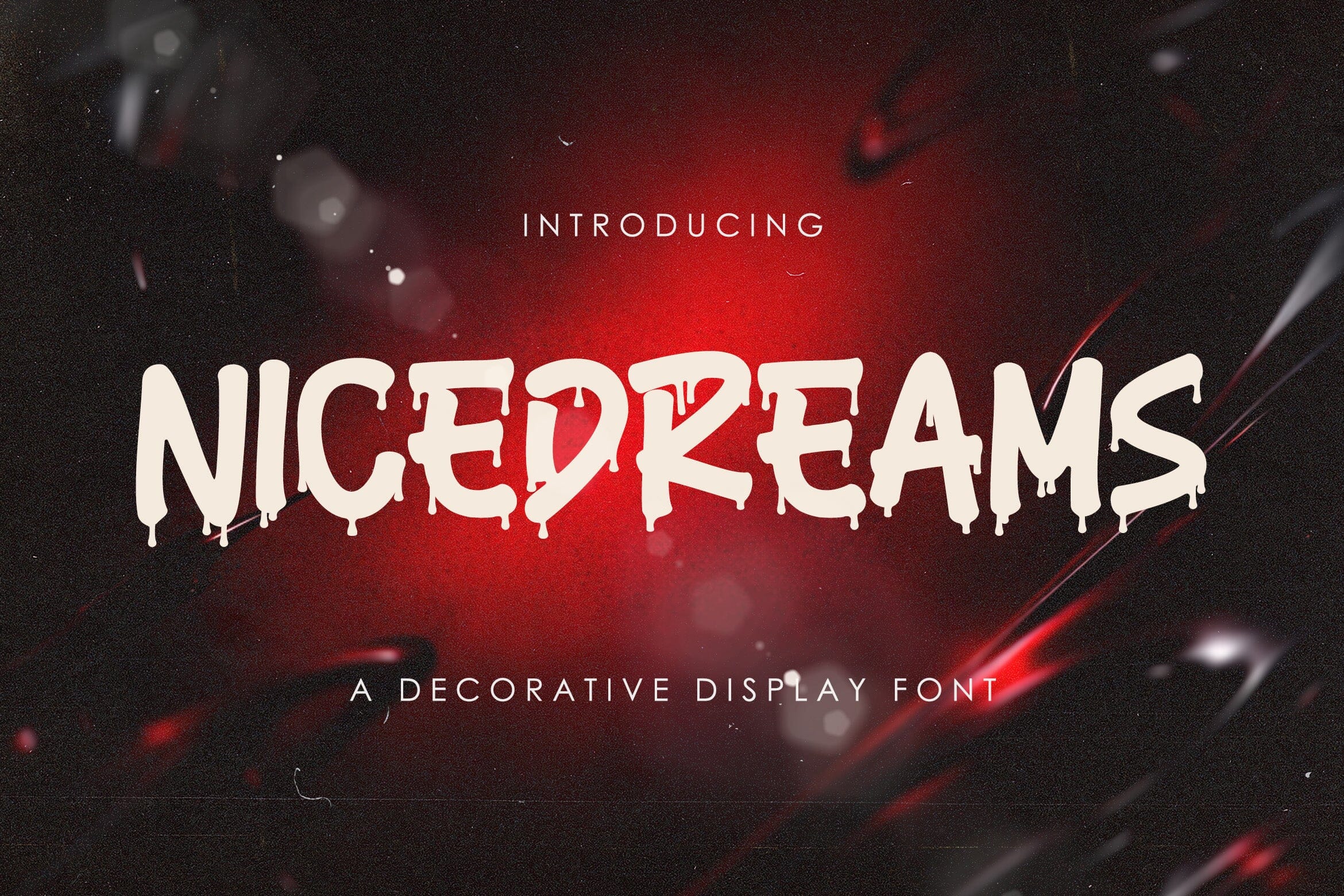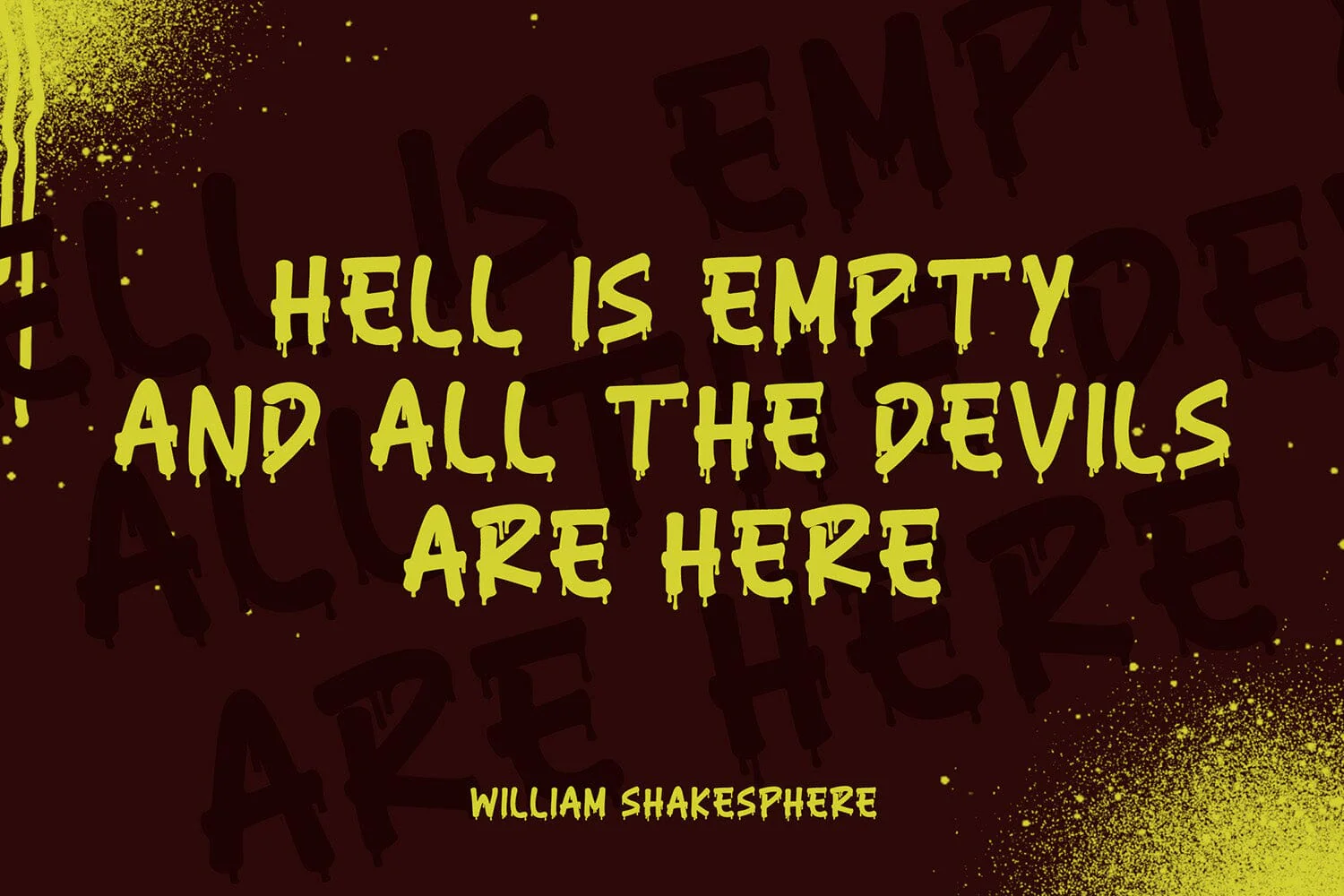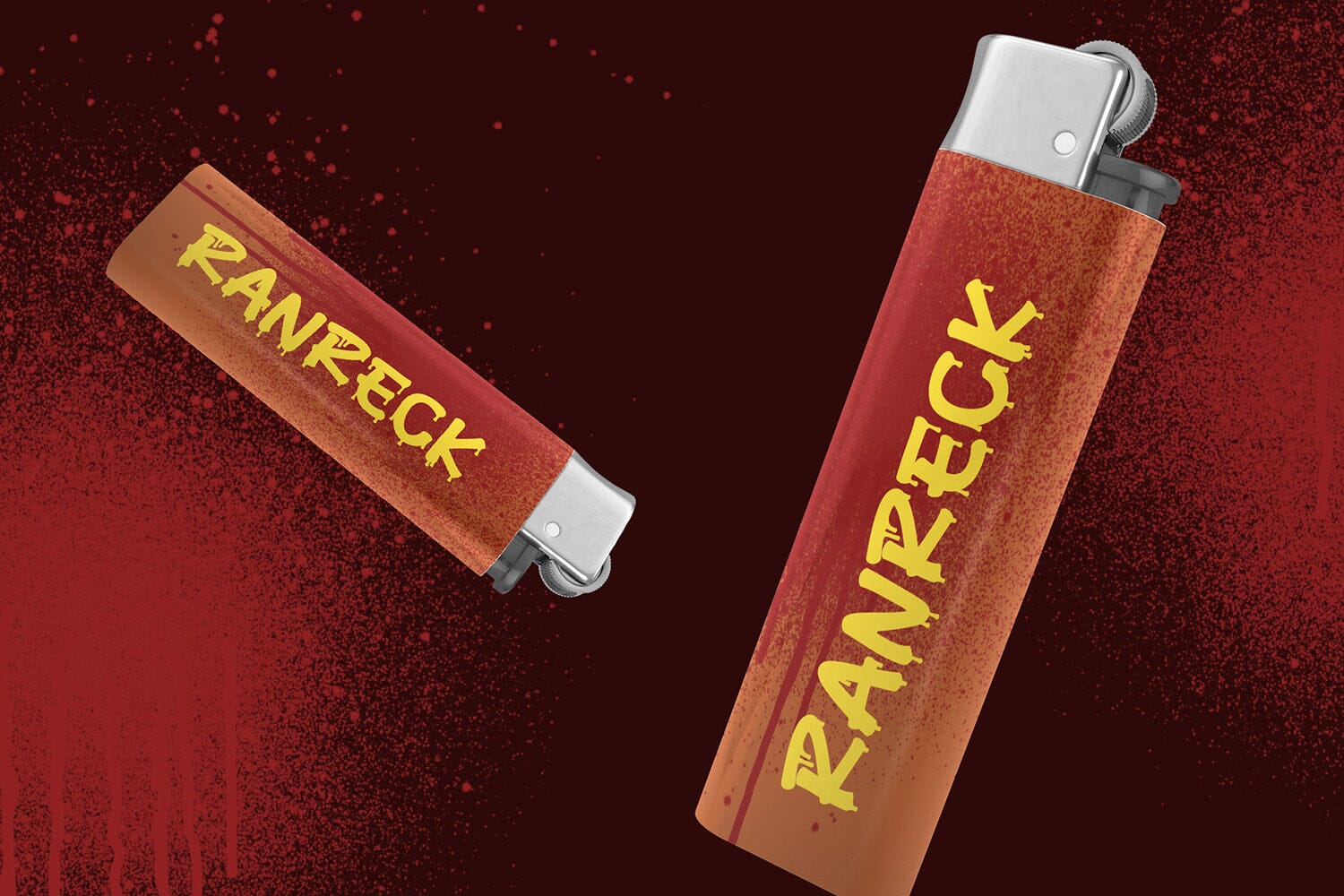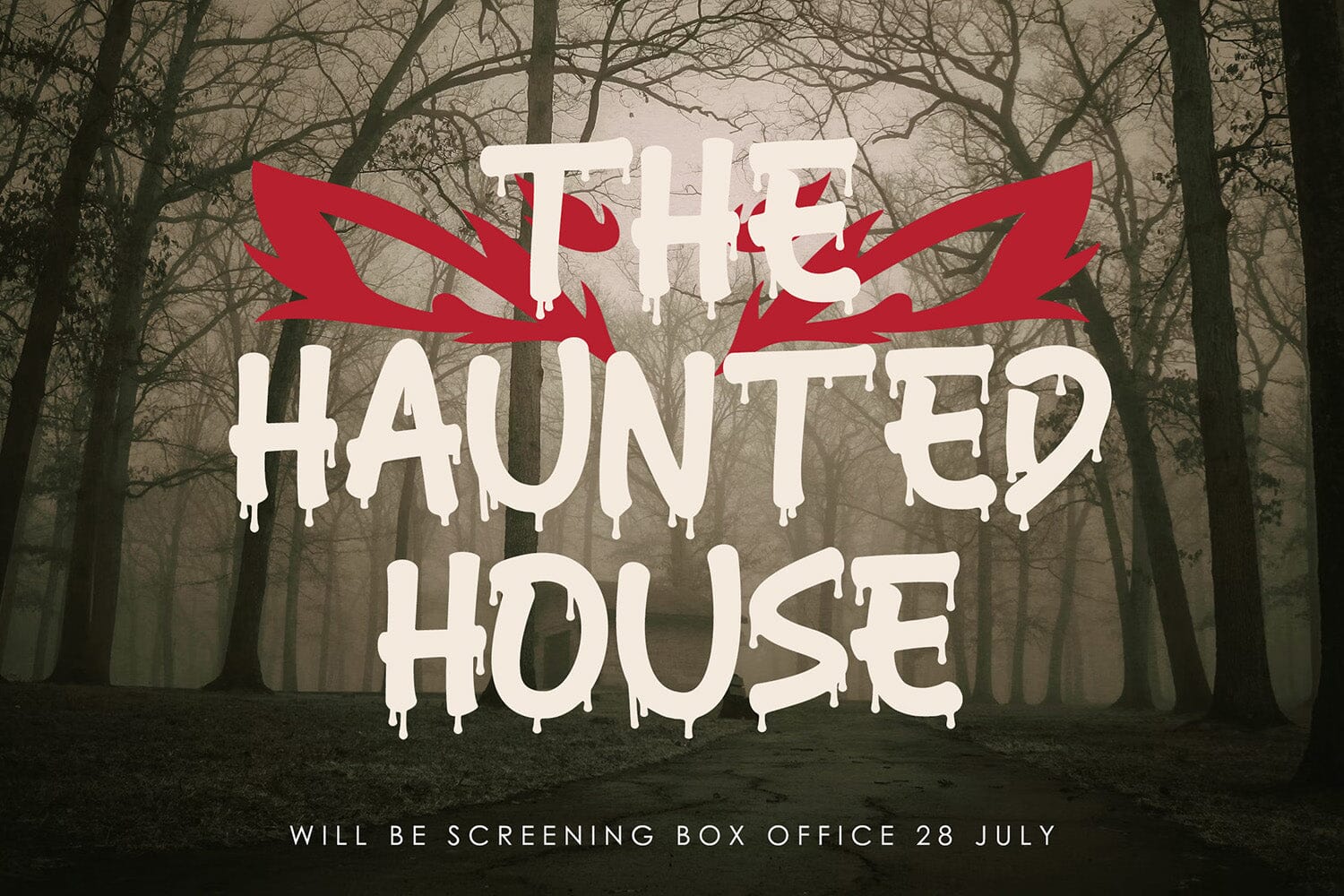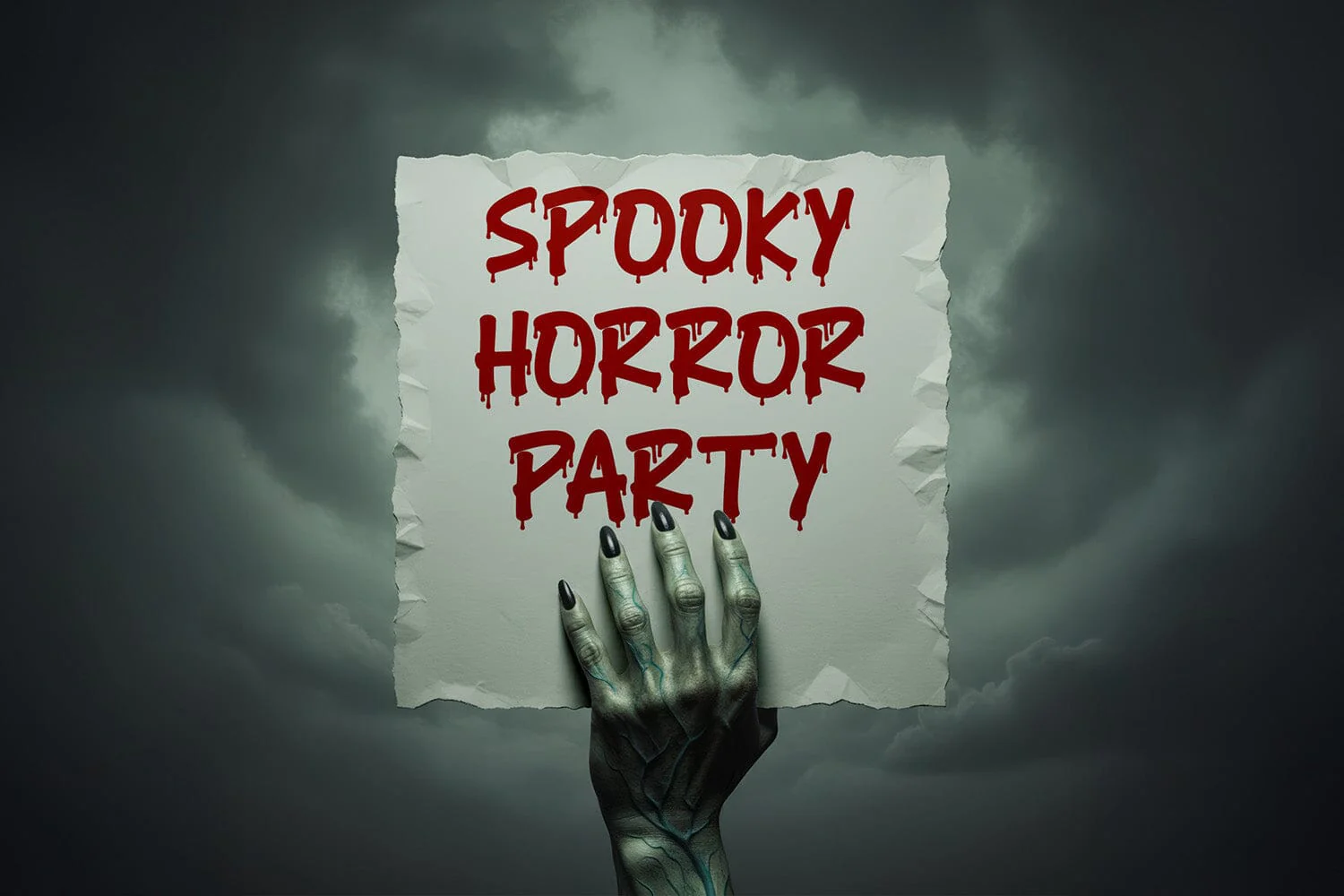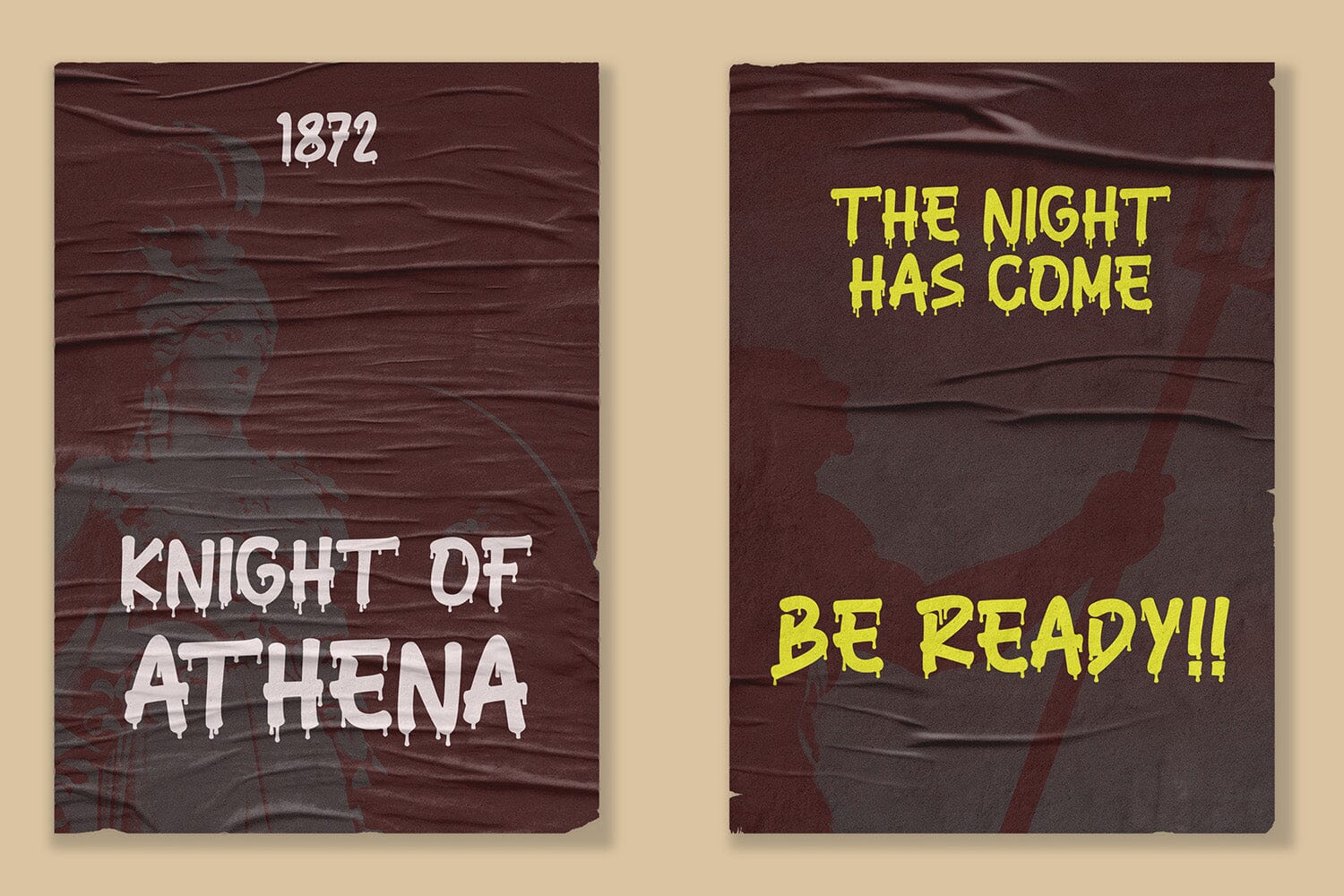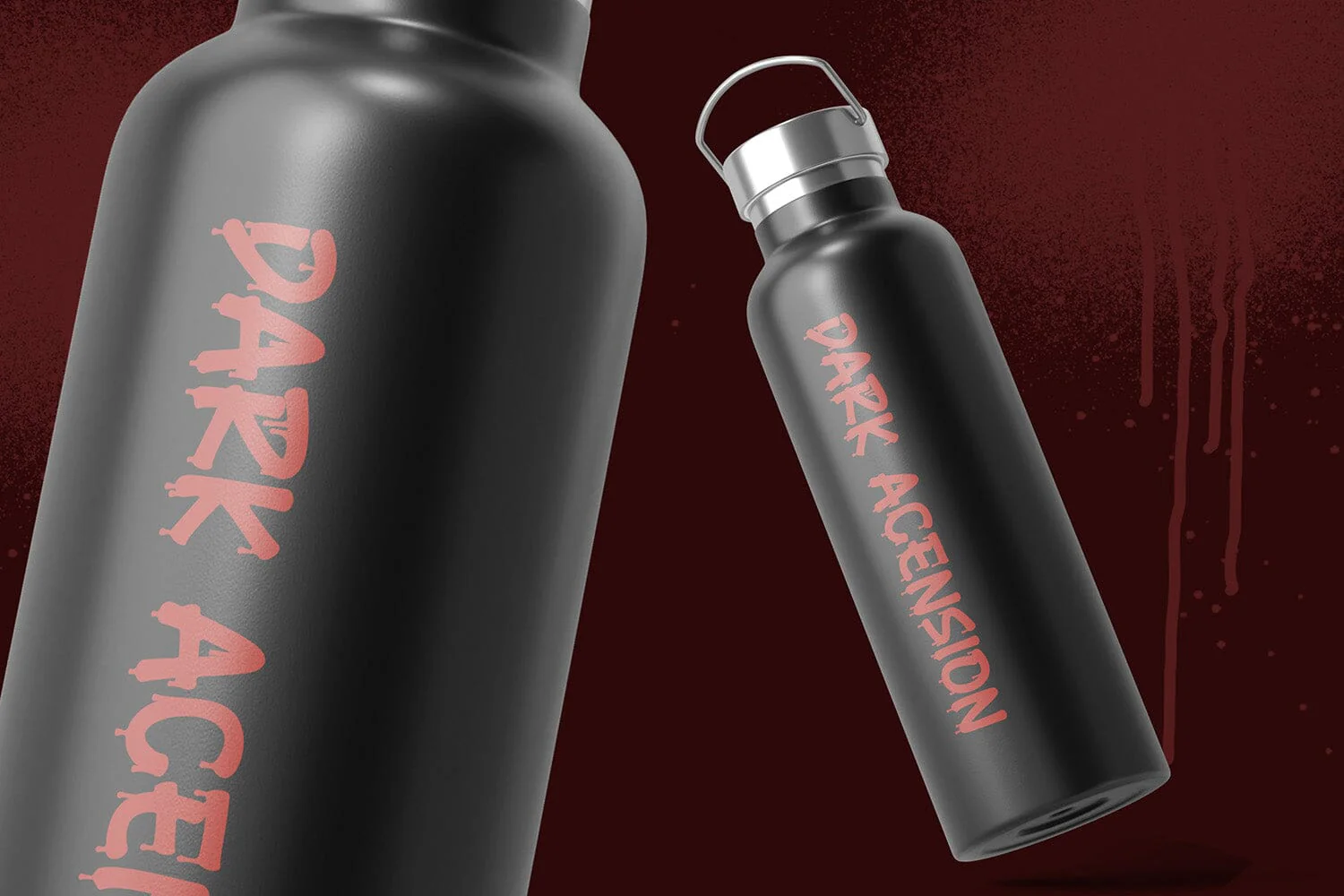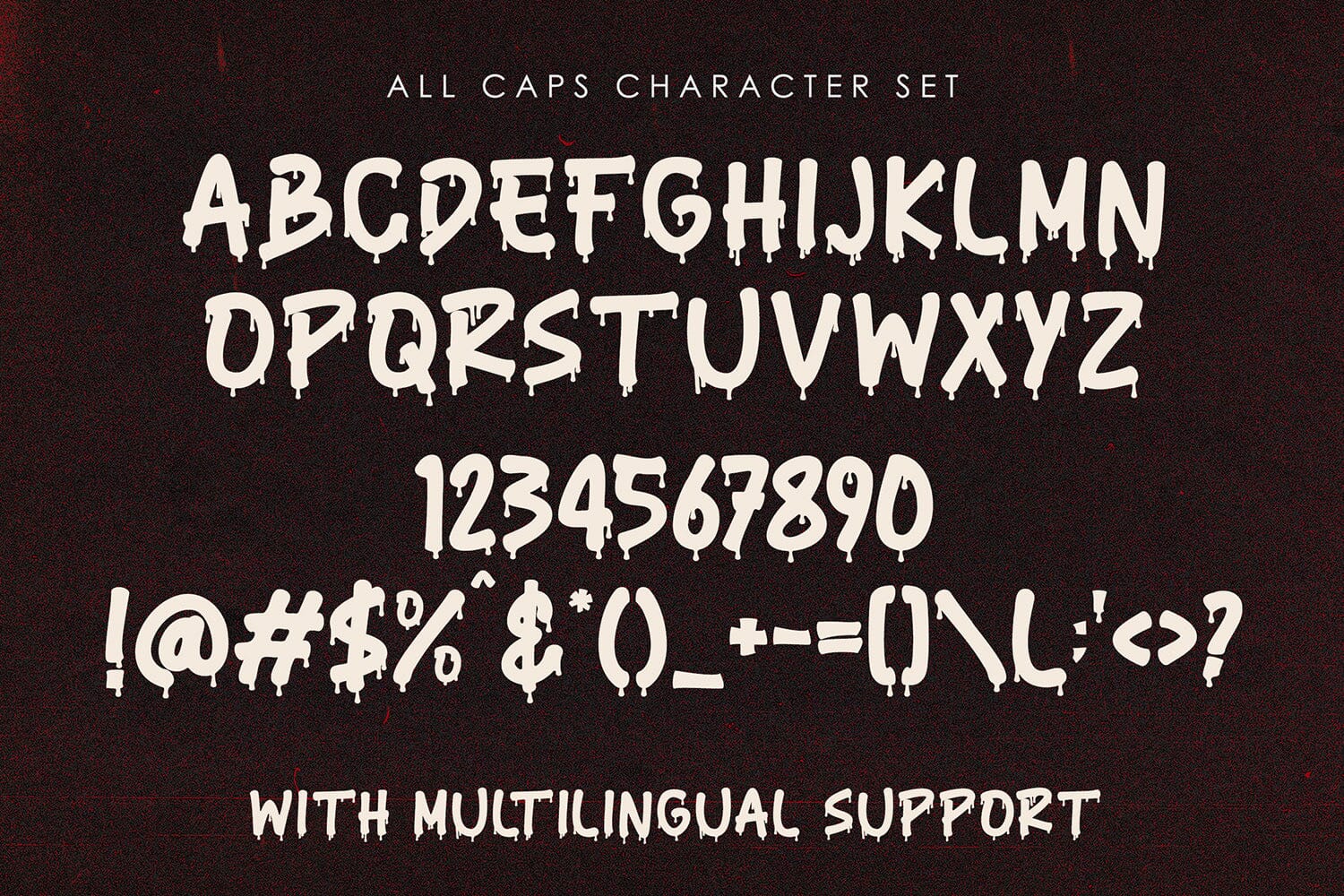
Nicedreams - Drip Decorative Font
Introducing Nicedreams - Drip Decorative Font
Nicedreams is a drip decorative font designed with a bold and playful dripping effect that creates a unique and eye-catching appearance. Its fluid shapes and expressive style give the font a fun and creative personality that stands out instantly.
This font is perfect for logos, posters, branding, headlines, packaging, social media graphics, and creative typography projects. Nicedreams adds a strong visual impact with its decorative dripping details, making designs feel more dynamic and artistic.
With its distinctive style and bold character, Nicedreams helps bring a creative and expressive touch to any visual composition.